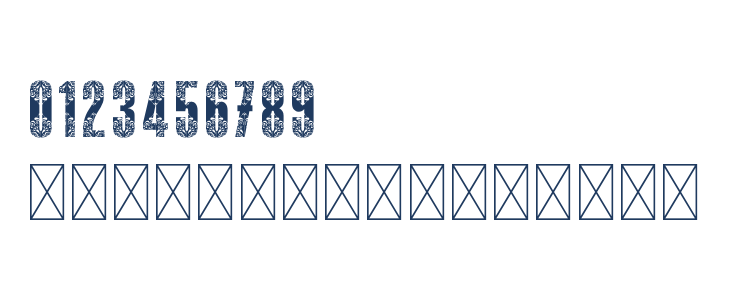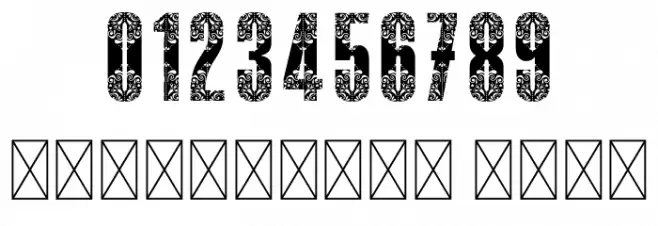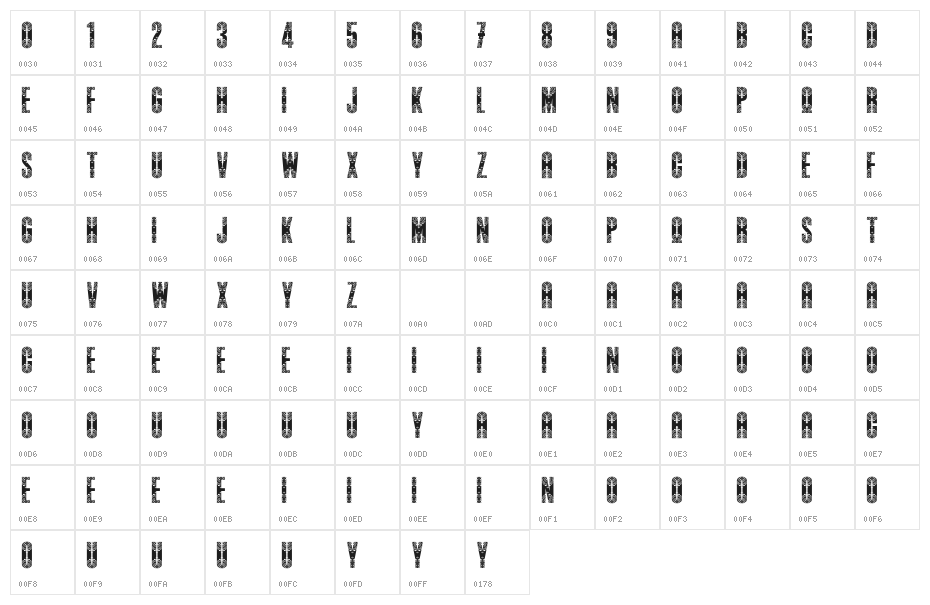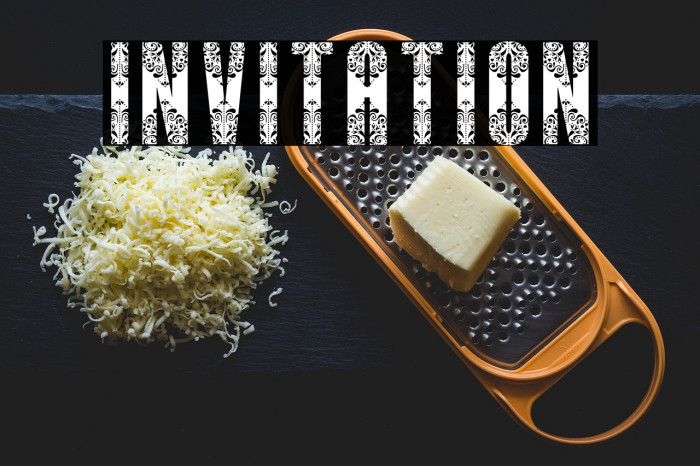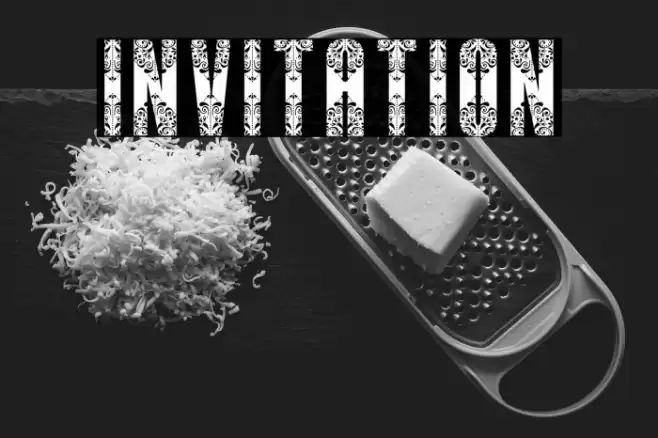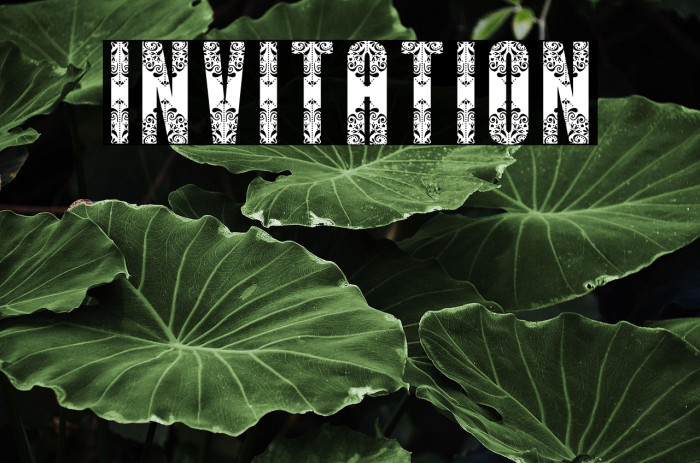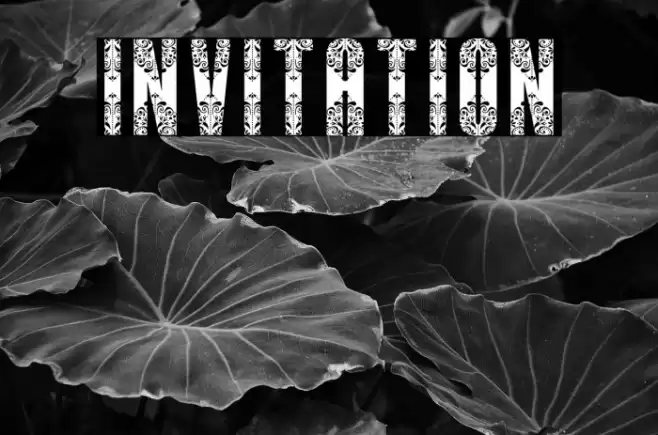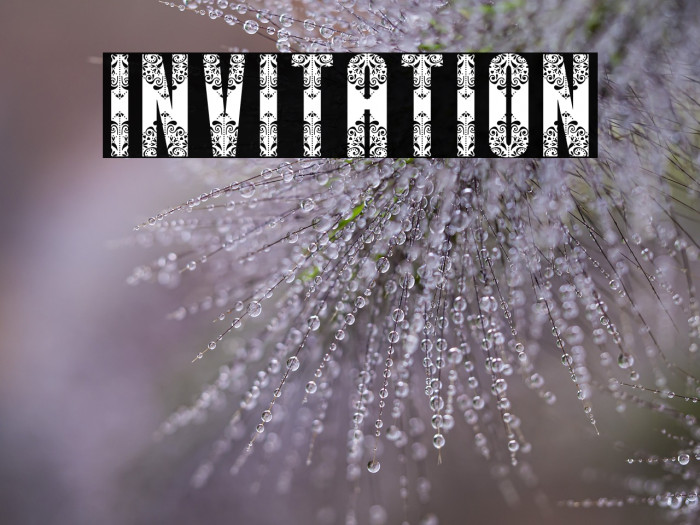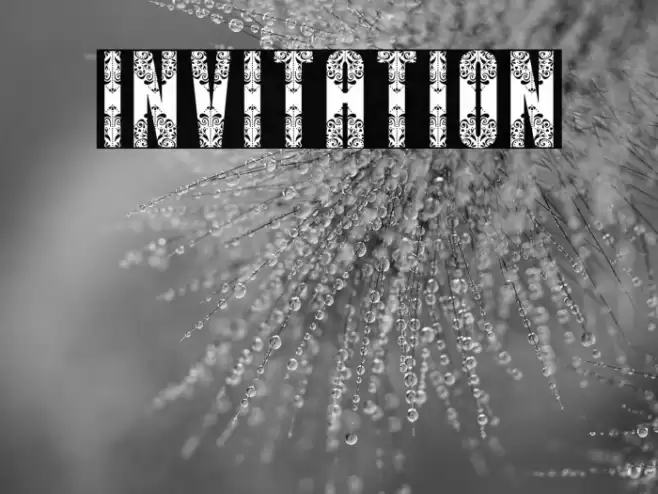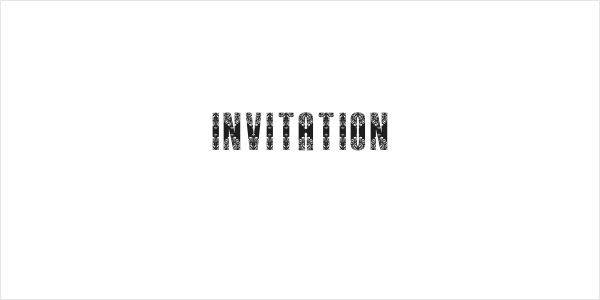
Invitation Font
Invitation Description
This font features an intricate and decorative design, with each character adorned with ornate patterns reminiscent of vintage damask or baroque styles. The bold and blocky letterforms are filled with detailed floral motifs, creating a striking contrast between the solid black background and the white decorative elements. This font is highly stylized, making it ideal for projects that require a touch of elegance and sophistication. The uppercase letters are particularly prominent, while the numbers maintain the same decorative theme. The special characters, however, are not clearly defined, suggesting a focus on the alphabet and numerals.
| Proposed Projects | Ideal for wedding invitations, luxury branding, event posters, and decorative signage. |